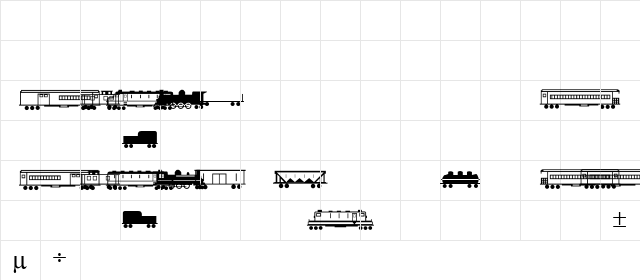
Trains Regular
Design Context for Trains
Trains is a composed and adaptable typeface that performs quietly and consistently across a wide range of design contexts.